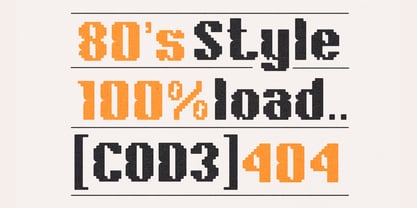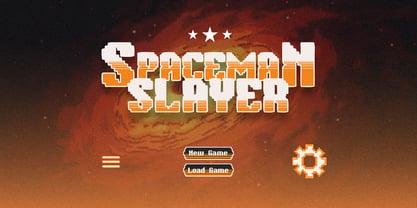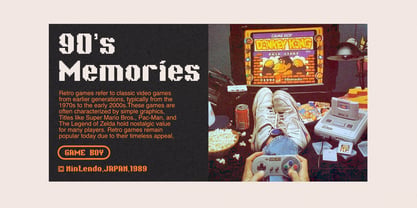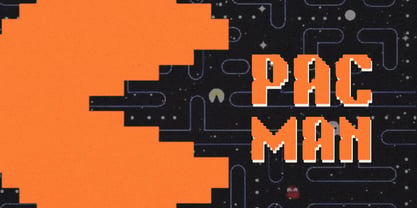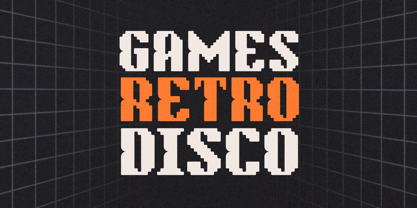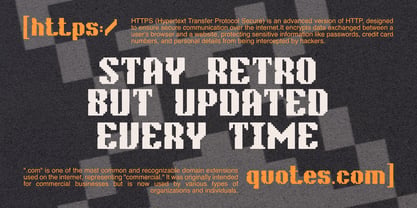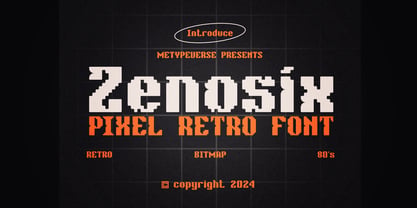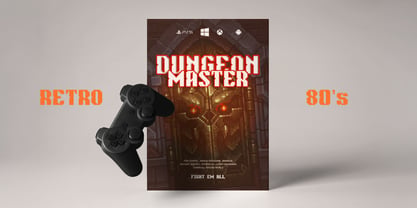
Zenosix
by Metypeverse
The Zenosix Font Family was designed by Mohamad Ridwan and published by Metypeverse. Zenosix contains 2 styles and family package options. More about this family
Retro doesn’t have to look dated.
Zenosix brings the familiar energy of classic arcade and pixel graphics into a cleaner, more usable display typeface. Its blocky character keeps the nostalgia intact while helping every word stay sharp, readable, and intentional.
Built for game titles, menus, covers, posters, digital graphics, and pixel-inspired branding, Zenosix helps you create retro visuals that feel authentic, distinctive, and ready for today.